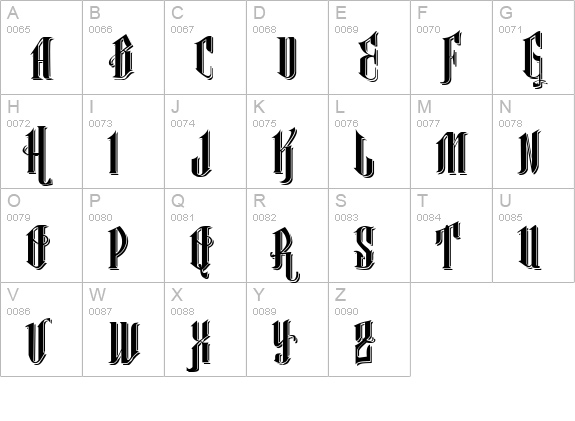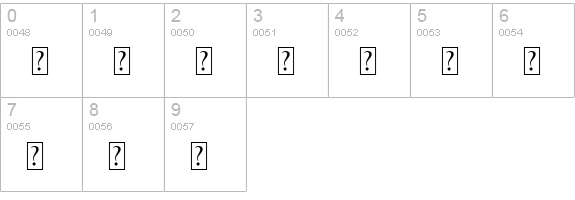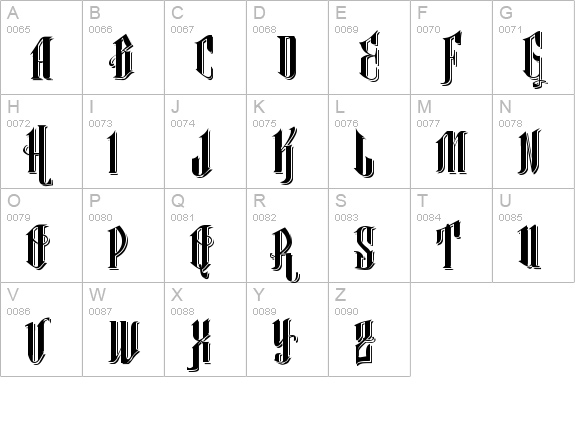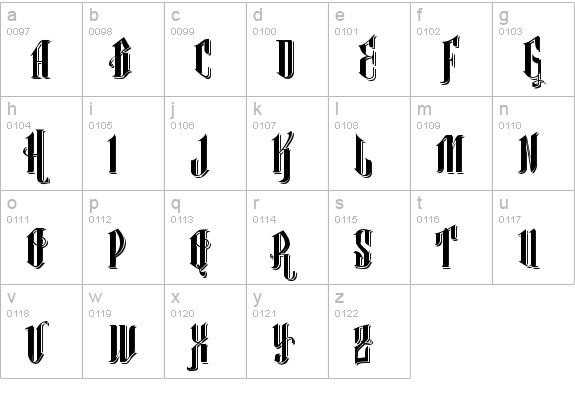
Vtks Classical Hit font is a stunning and timeless typeface that captures the elegance and grandeur of classical typography. Inspired by the classical art forms and the intricate details of vintage lettering, this font exudes a sense of sophistication and refinement. Every character in Vtks Classical Hit is meticulously crafted with intricate curves and graceful strokes, creating a harmonious balance between traditional and modern design. The letters are beautifully adorned with decorative elements, adding a touch of opulence to any project. Whether you are designing wedding invitations, elegant logos, or luxurious branding materials, Vtks Classical Hit font will elevate your designs to new heights. Its versatility allows it to be used for both formal and informal occasions, giving your creations a touch of timeless charm. The best part is that Vtks Classical Hit font is available for free download at FontsMarket.com. This means that you can enjoy the beauty and sophistication of this font without any cost. It is a valuable resource for designers, typographers, and anyone looking to add a touch of classical elegance to their projects. With its timeless appeal and free availability, Vtks Classical Hit font is a must-have in every designer's toolkit. Download it now and let its beauty and elegance inspire your next creative endeavor.